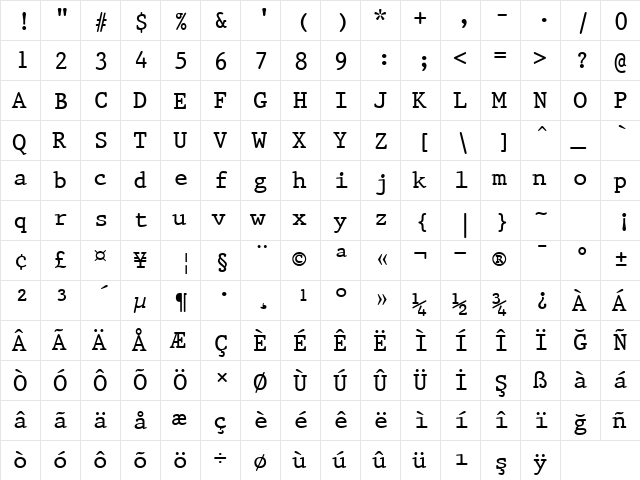
00547 Regular
00547 takes a measured approach to typography — its balanced proportions and neutral character make it a reliable workhorse for both digital and print work.